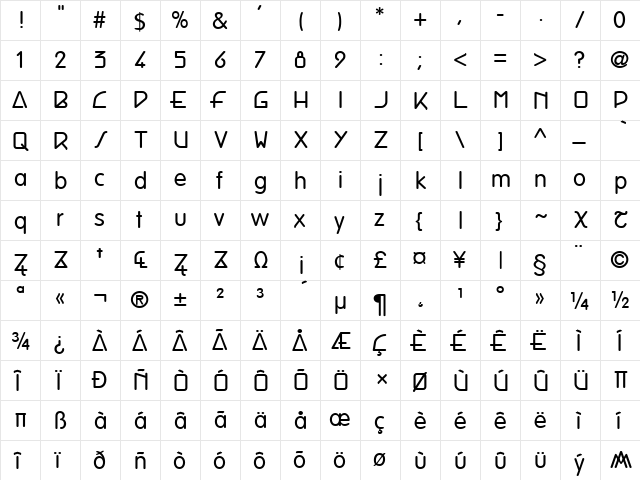
Clun'sois Regular
Design Context for Clun'sois Typeface
Clun'sois takes a measured approach to typography — its balanced proportions and neutral character make it a reliable workhorse for both digital and print work.